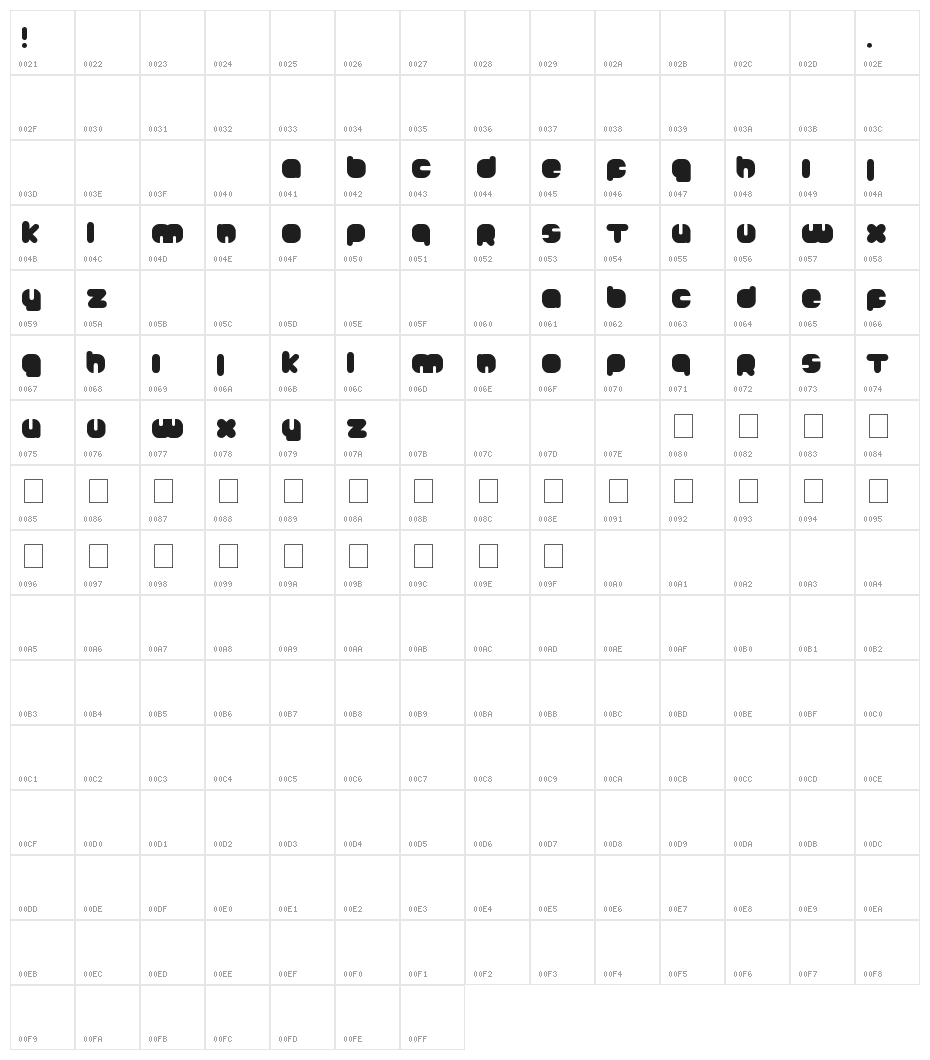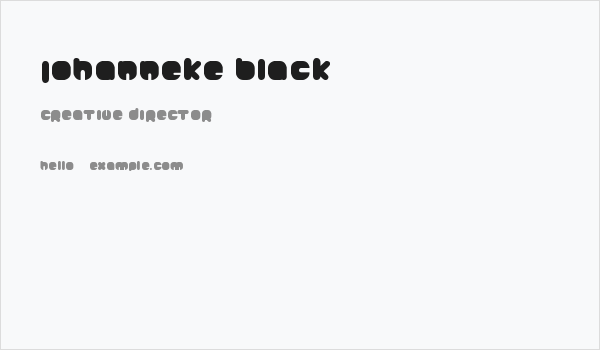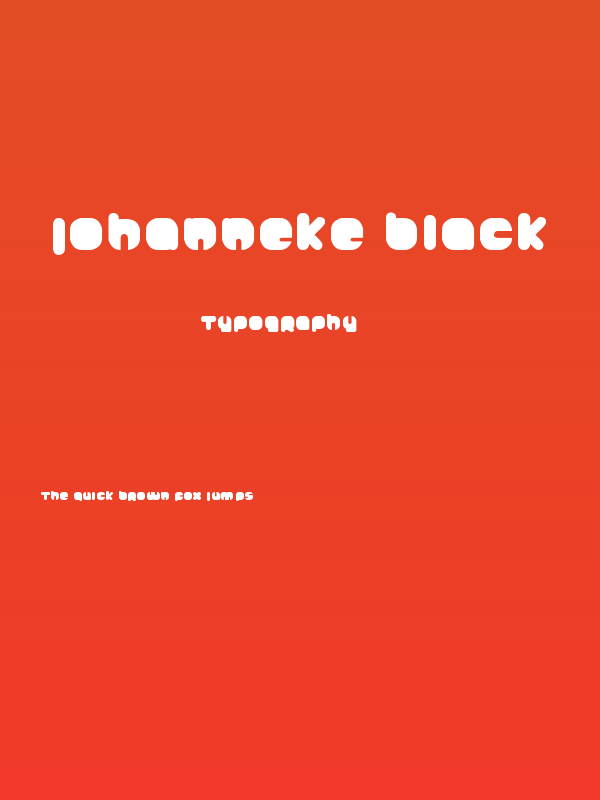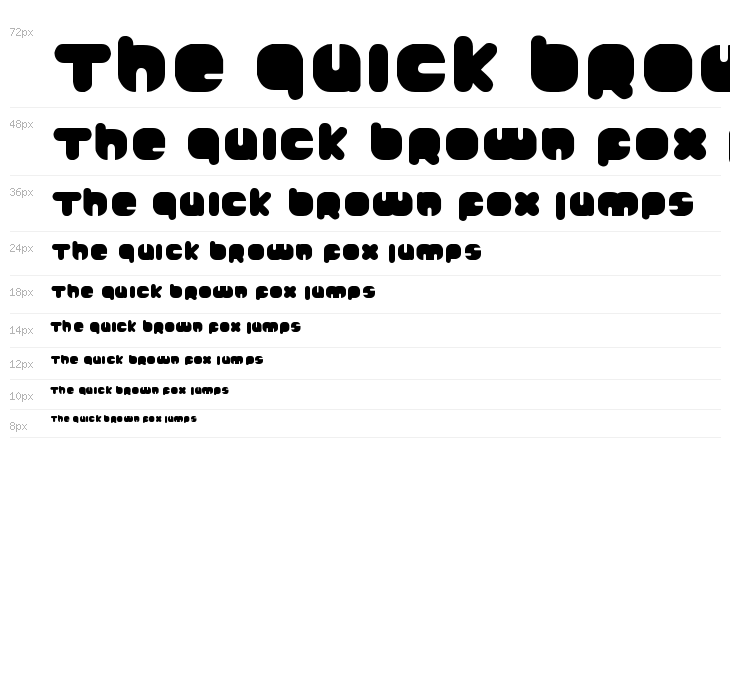
Johanneke Black Font
Johanneke Black Description
This font features a bold and rounded style with a distinctively modern and playful appearance. Each character is crafted with a uniform thickness, creating a cohesive and solid look. The rounded edges and absence of sharp angles give it a friendly and approachable feel. The characters are evenly spaced, contributing to a clean and organized appearance. The font's boldness makes it highly visible and impactful, suitable for grabbing attention. Its unique style is ideal for creative projects that require a touch of fun and modernity.
Proposed ProjectsIdeal for branding, posters, children's books, and playful graphic designs.